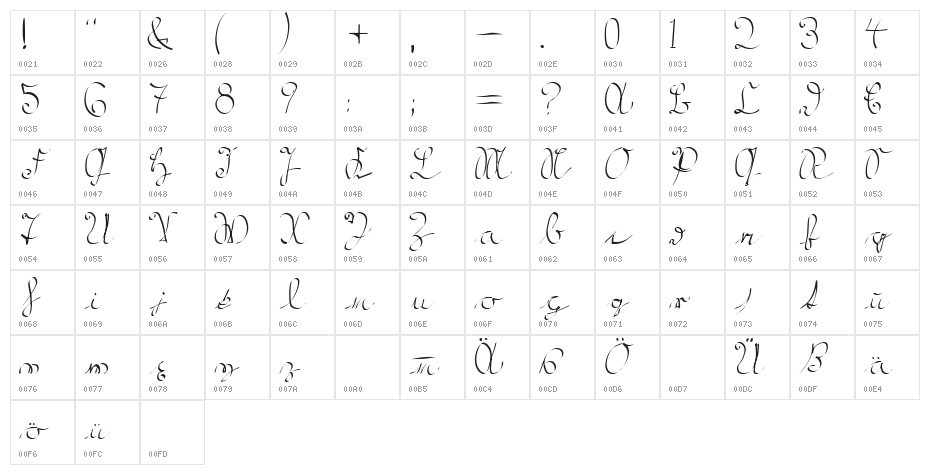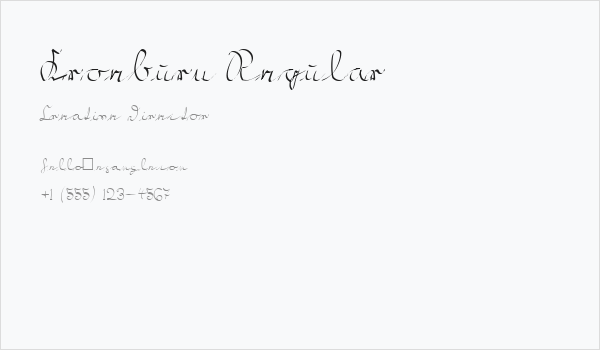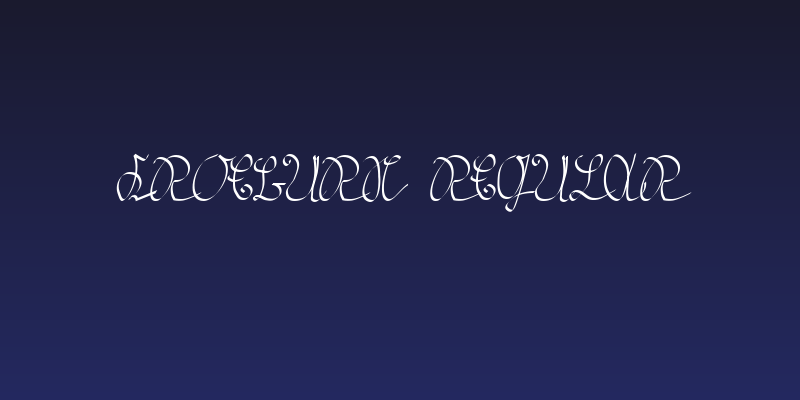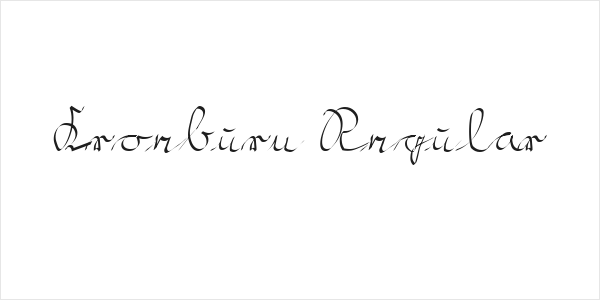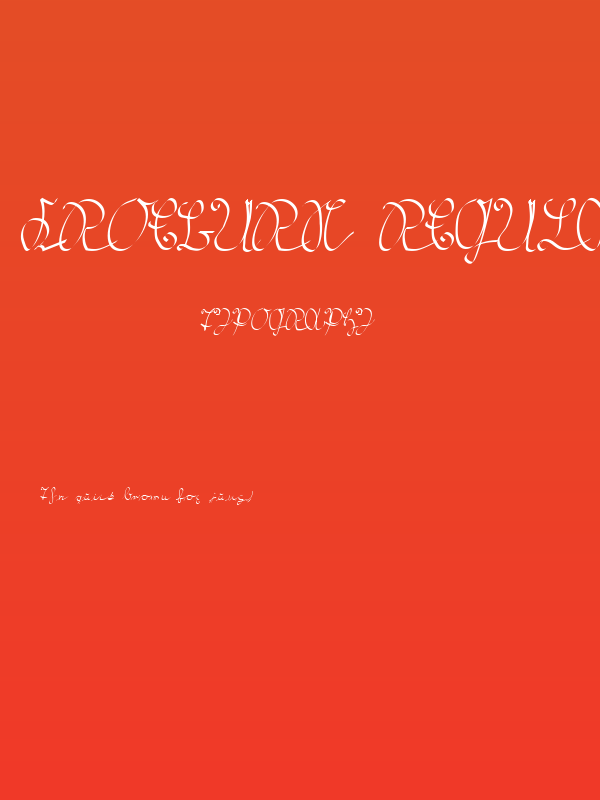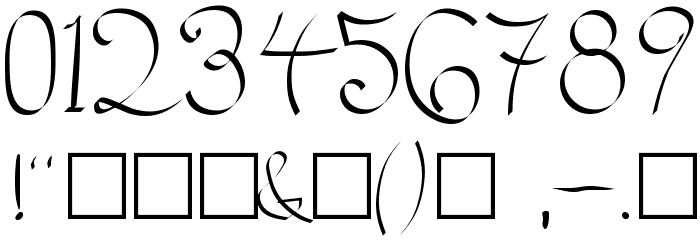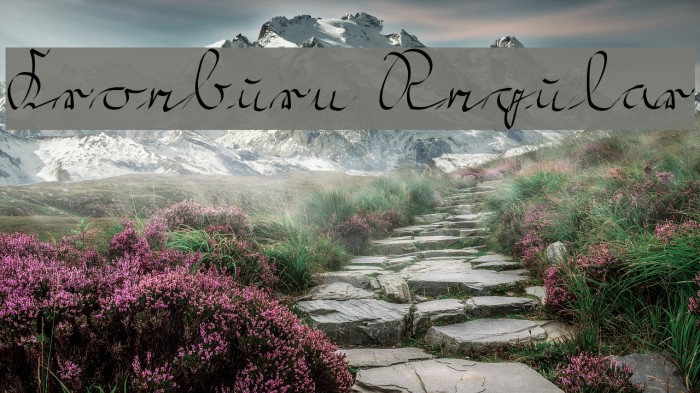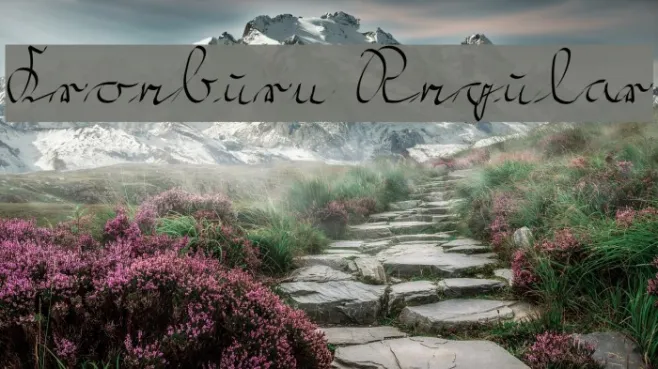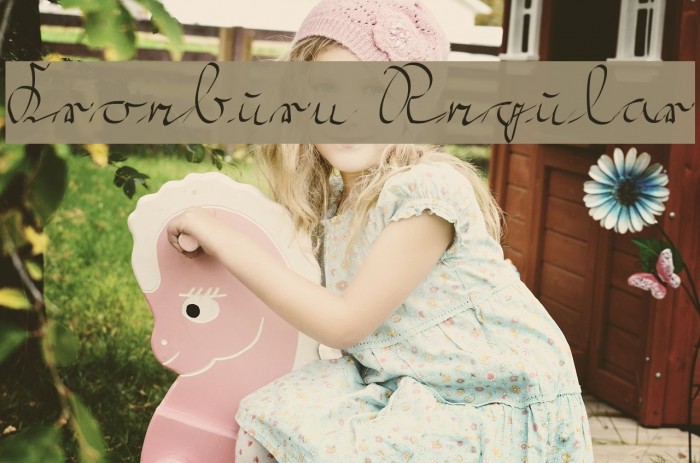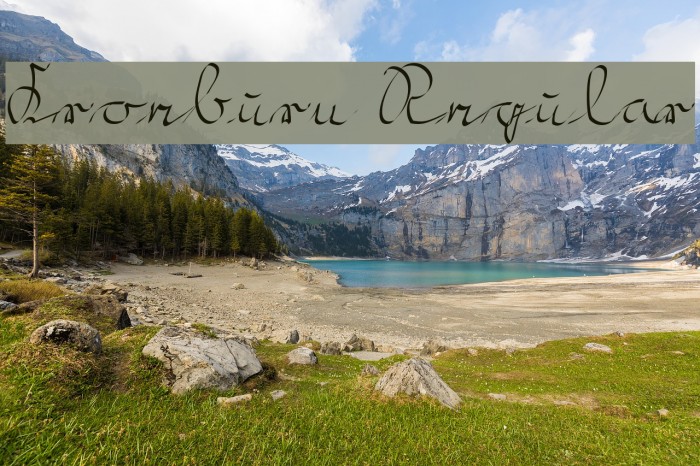
Kroeburn Regular Font
Kroeburn Regular Description
This font features an elegant and flowing script style, characterized by its intricate and decorative letterforms. The uppercase letters are ornate with sweeping curves and loops, while the lowercase letters maintain a consistent fluidity, enhancing the overall graceful appearance. The numerals are distinct, with a slight flourish that complements the alphabetic characters. Special characters are designed with the same attention to detail, making them seamlessly integrate with the rest of the font. This font's artistic and sophisticated nature makes it suitable for projects that require a touch of elegance and refinement.
| Proposed Projects | Ideal for wedding invitations, luxury branding, elegant stationery, and artistic posters. |